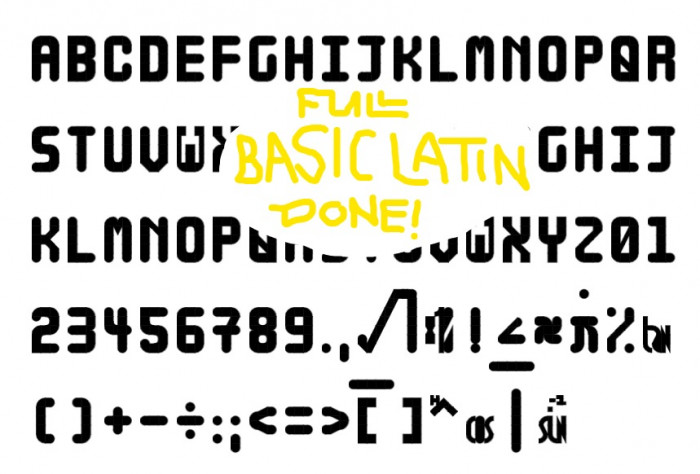
• Only for math purposes.
All of basic latin done!
Combination characters:
\ (Backslash): put a line at the top.
" (Double Quotation): start of square root.
' (Apostrophe): end of square root.
_ (Low Line): put a line at the bottom (to make fractions)
? (Question Mark): for decimals (e.g. 8.116335529...).
# (Hashtag): pi, 3.14159...
{ (Open Curly Bracket): cosine.
} (Closed Curly Bracket): sine.
& (Ampersand): tangent.
$ (Dollar Sign): put a dot at the top (for decimals, e.g. 0.333333333...)
` (Grave Accent): hypothetic (for {, }, &)
~ (Tilde): to the power of -1 (for {, }, &)
@ (At Sign): angle sign.
Ø (Capital O with Stroke): infintiy.
Where are Dek and El (they numbers too)
done, dek is in "E with acute" and el is in "C with cedilla"